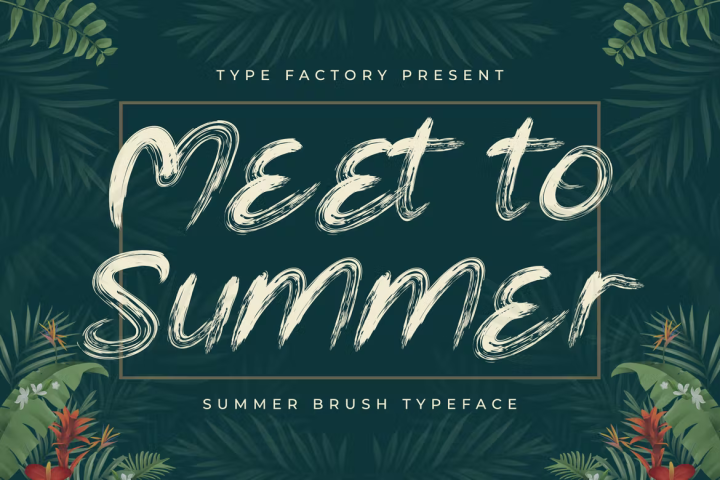
Meet to Summer Summer Brush Typeface
Meet to Summer is a tropical and dreamy brush font that radiates summer and positivity. Use it to add a relaxed vibe to any design project.